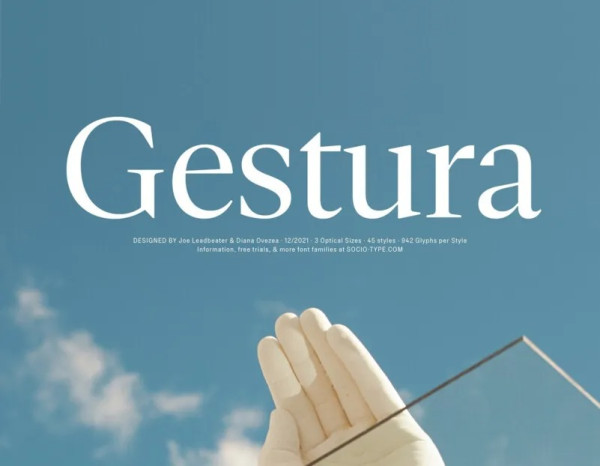
Gestura Font
Gestura Font is a butcherly serif font inspired by the beauty of modern serifs, fused with modern appeal to cater to contemporary needs. With careful attention paid to the balance of legibility and distinctive personality, Gestura’s counter proportions more closely resemble Granjon’s original model, while moments of minimalist detail are influenced by Plantin’s more reductive form.